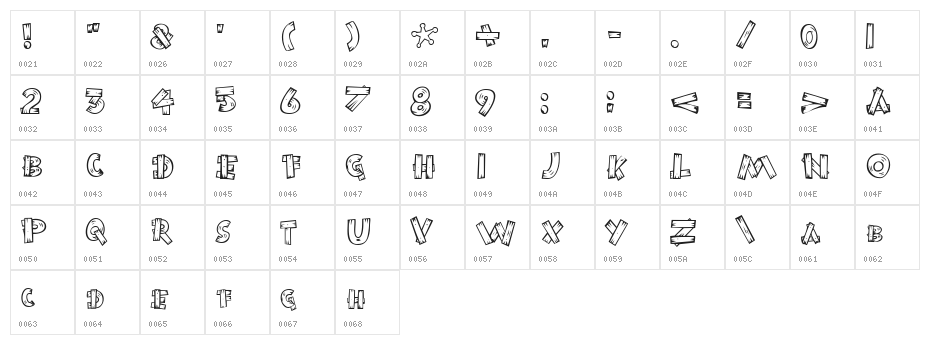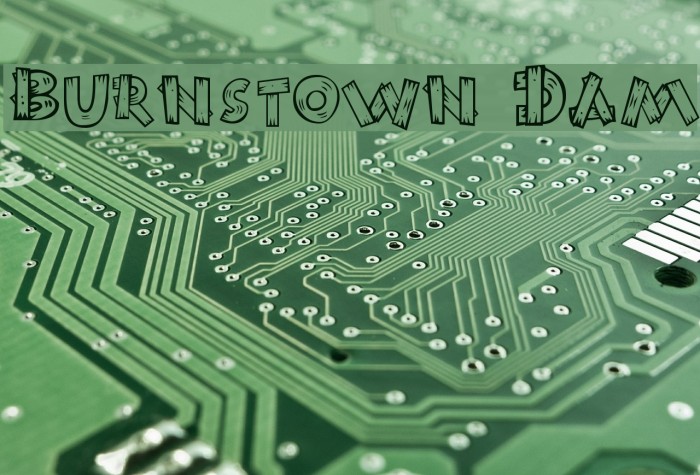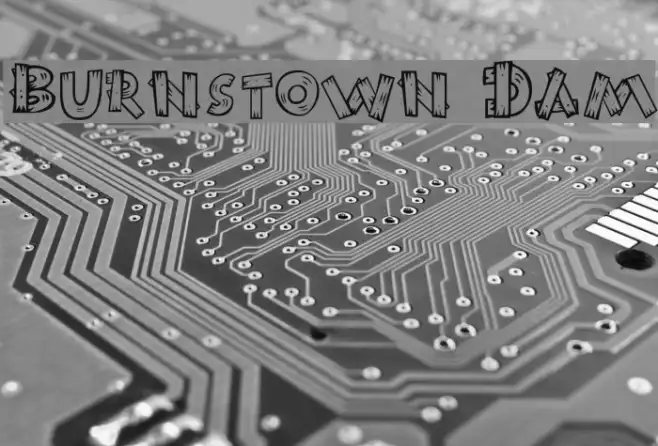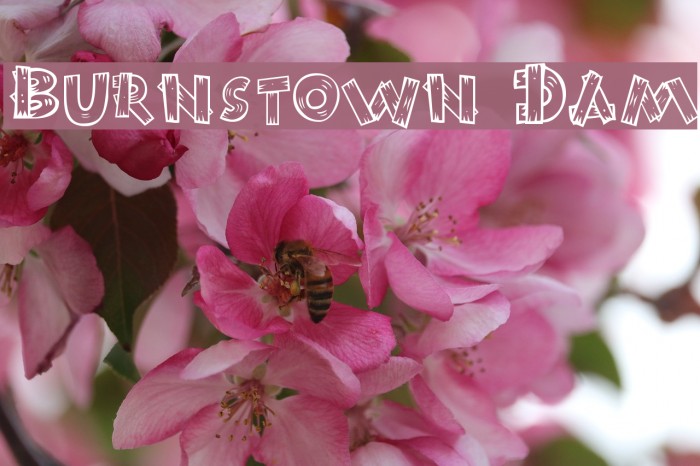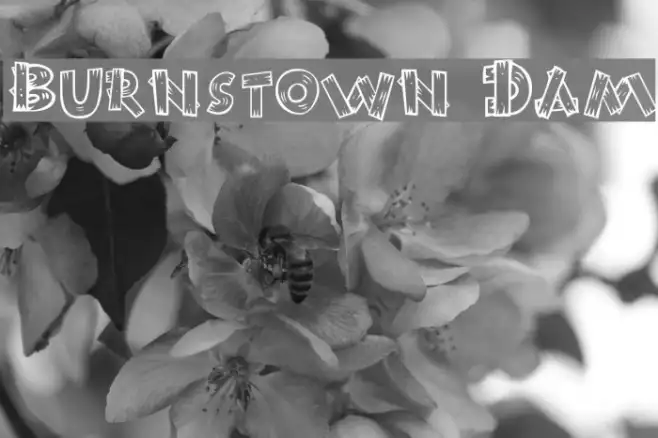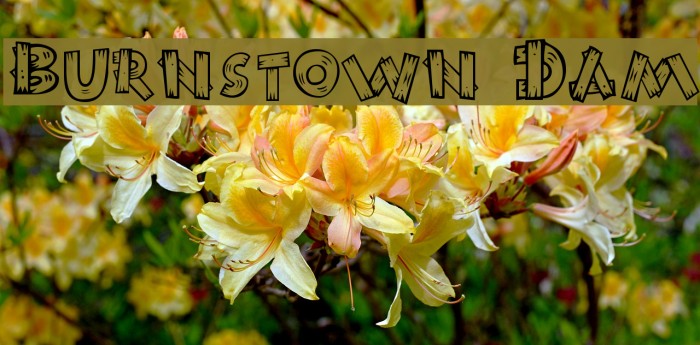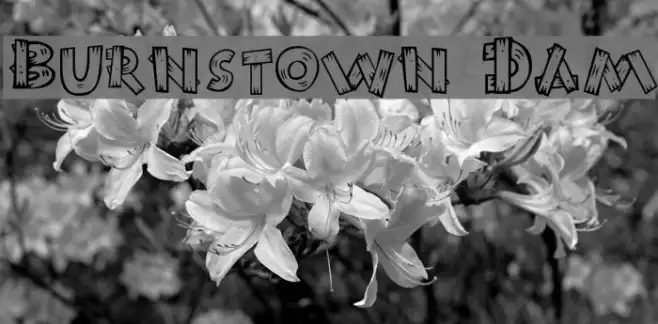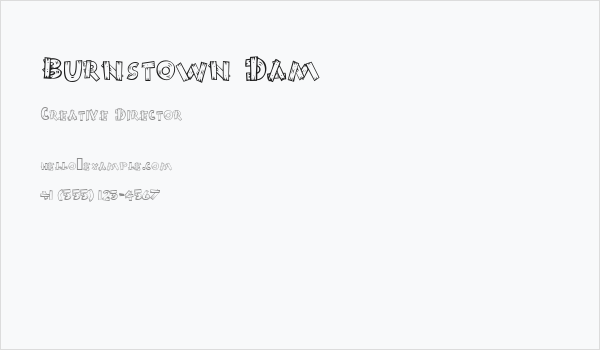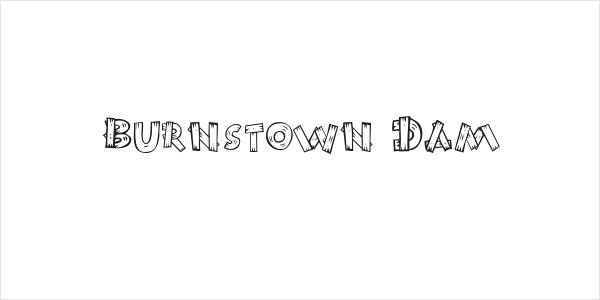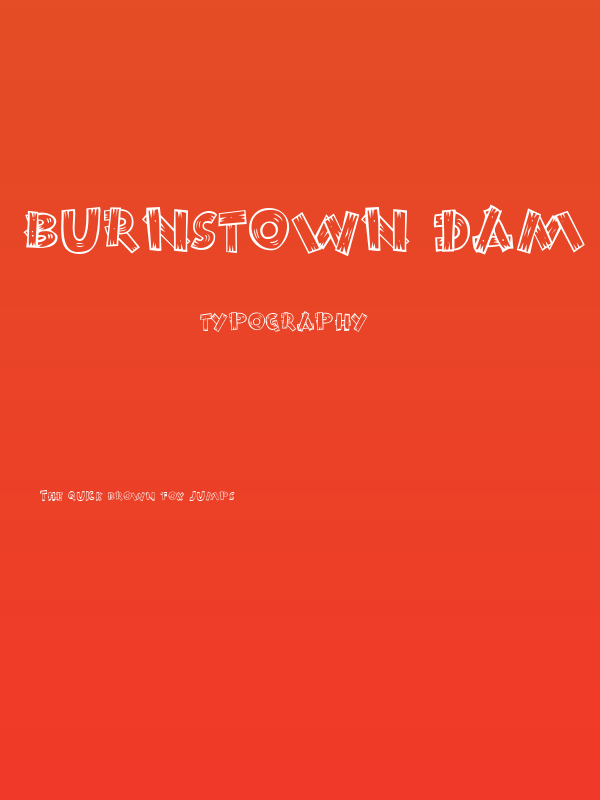
Burnstown Dam Font
Burnstown Dam Description
This font features a playful and bold design, characterized by its woodcut-like texture and uneven strokes. Each letter appears as if it has been carved out of wood, with a rough, hand-drawn aesthetic that adds a sense of whimsy and creativity. The uppercase and lowercase letters maintain a consistent style, with exaggerated serifs and a slightly irregular form that enhances its rustic charm. Numbers and special characters follow the same design principles, ensuring a cohesive look across all glyphs. This font's unique style makes it stand out, perfect for projects that require a touch of fun and originality.